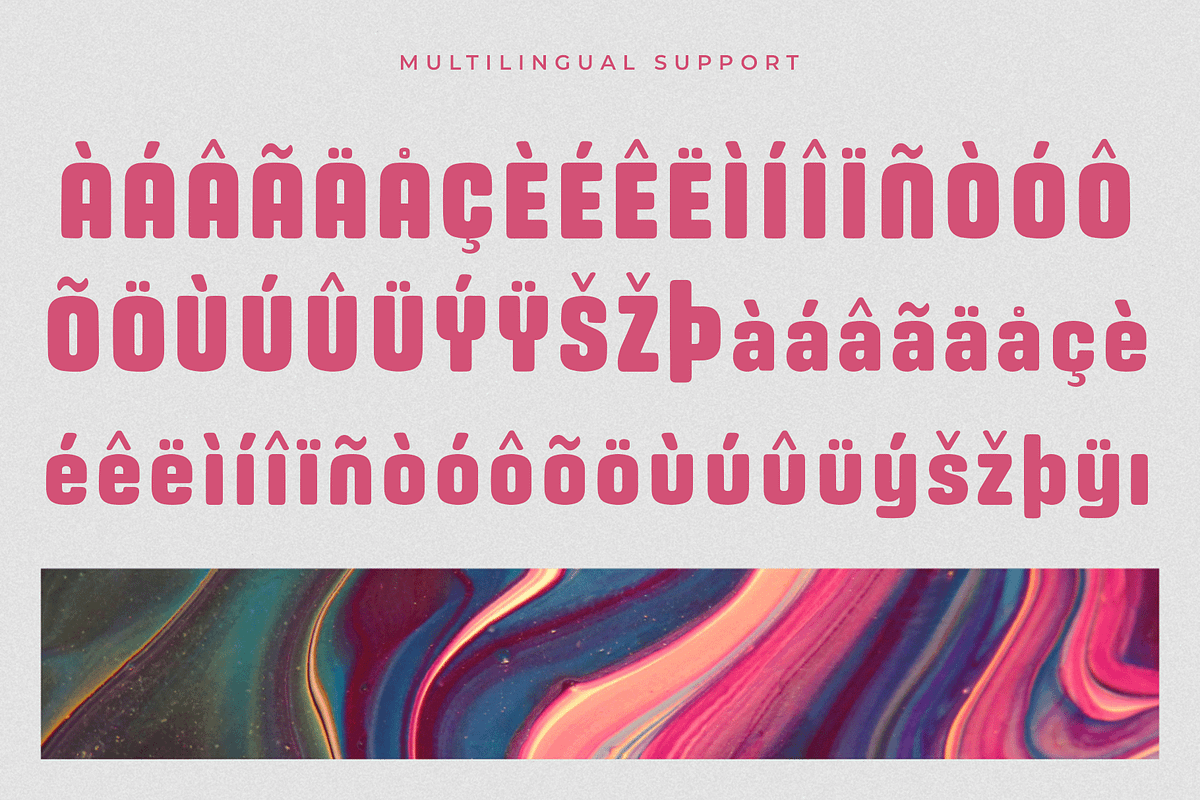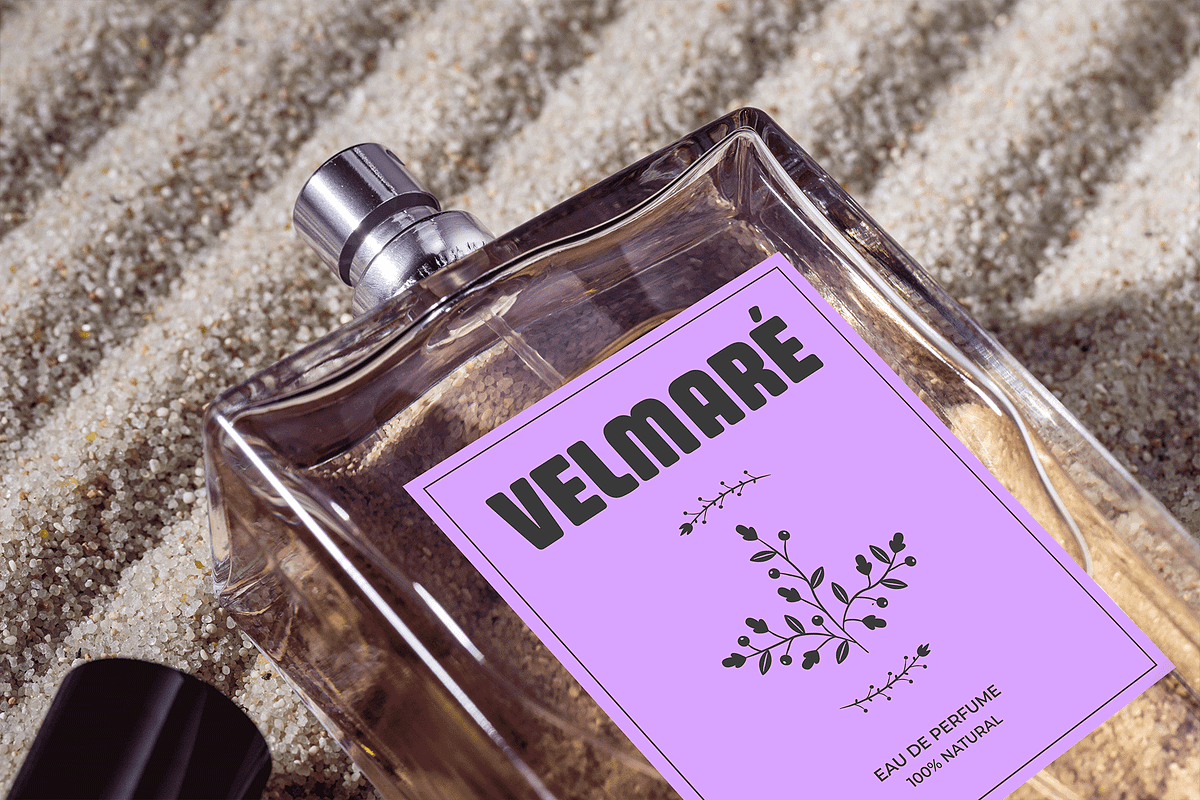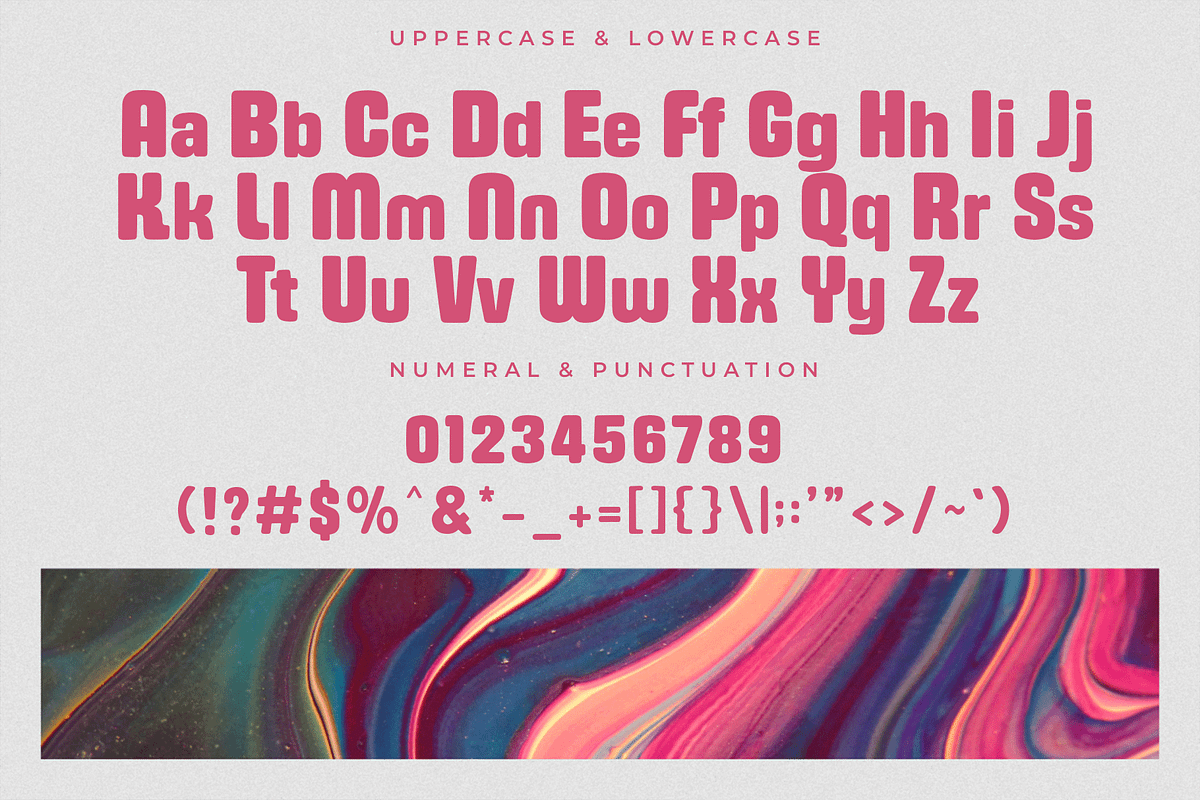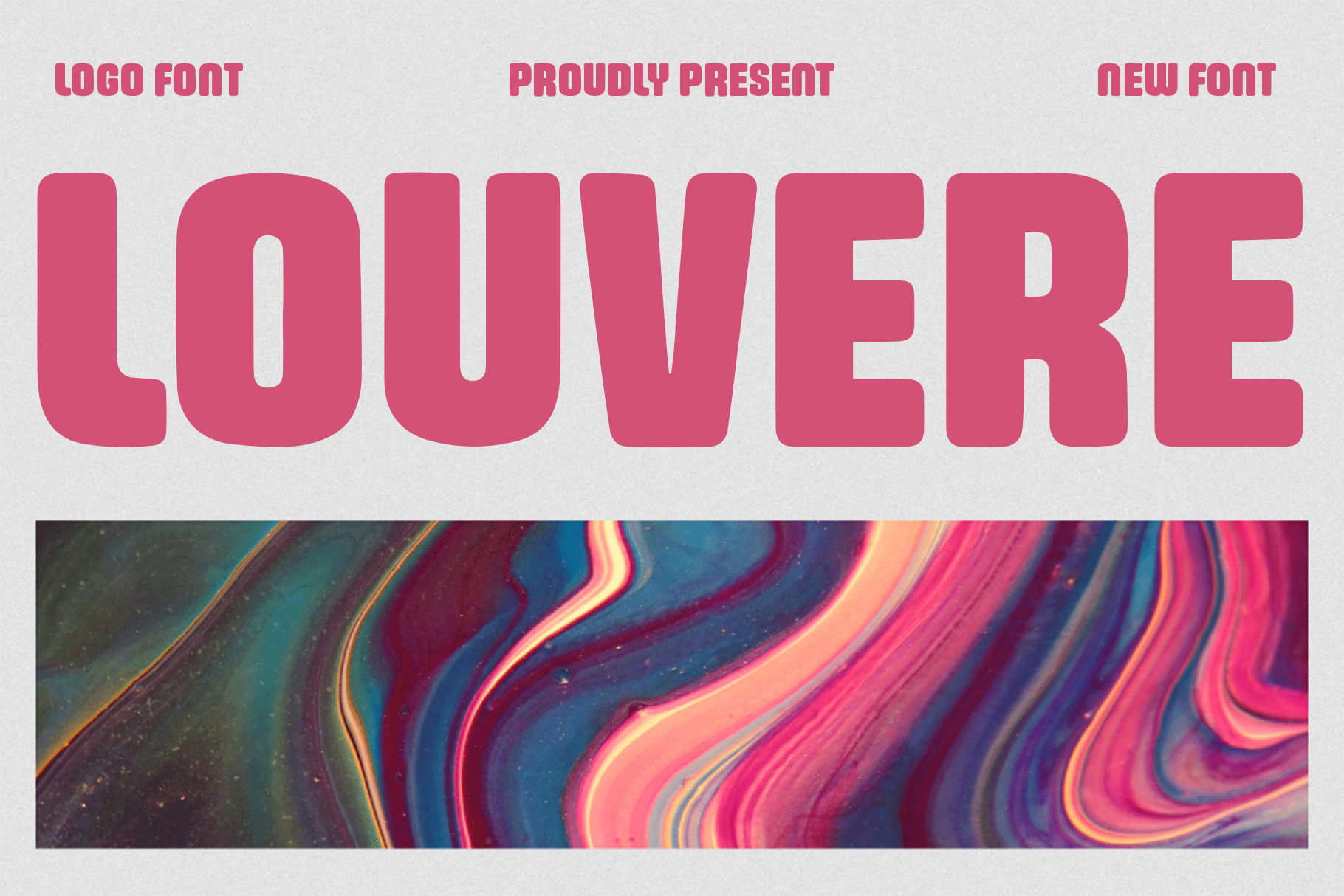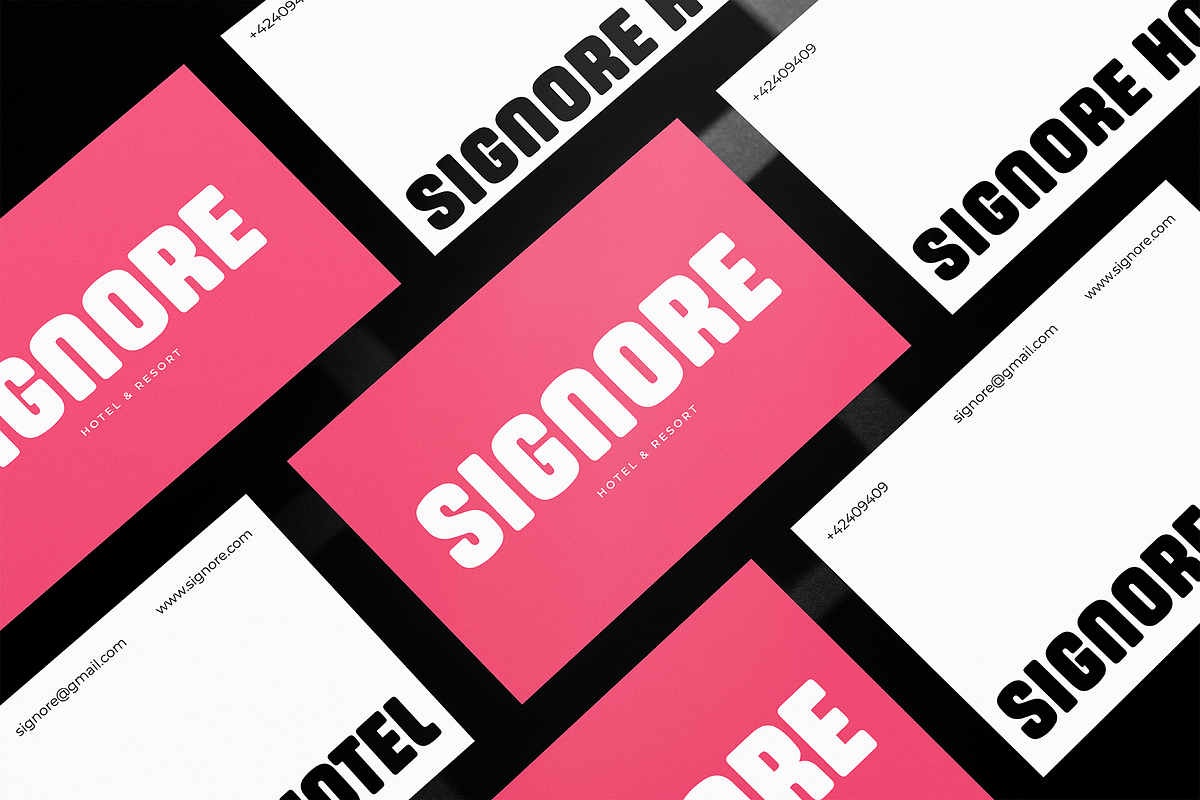
Louvere – Logo Font
Introducing Louvere, a clean and modern logo font crafted to help brands stand out with confidence and style. With its sleek lines, minimalistic structure, and balanced proportions, Louvere is designed for creating professional logos, branding materials, and visual identities that demand clarity and impact.
This font embodies the essence of simplicity while maintaining a bold character, making it suitable for industries ranging from fashion and beauty to technology and creative studios. Whether used for a wordmark, tagline, or headline, Louvere ensures your design communicates sophistication and professionalism.
Featuring uppercase, lowercase, numerals, punctuation, and multilingual support, Louvere provides everything you need to build a consistent and striking brand identity.